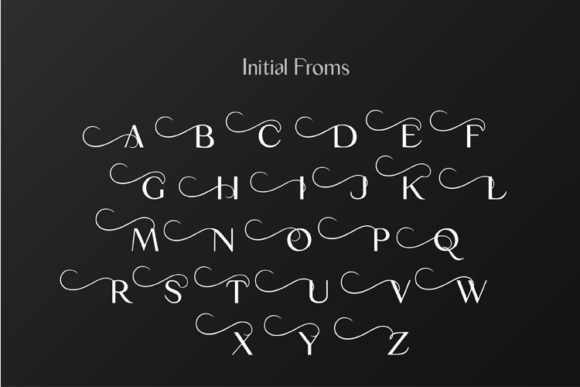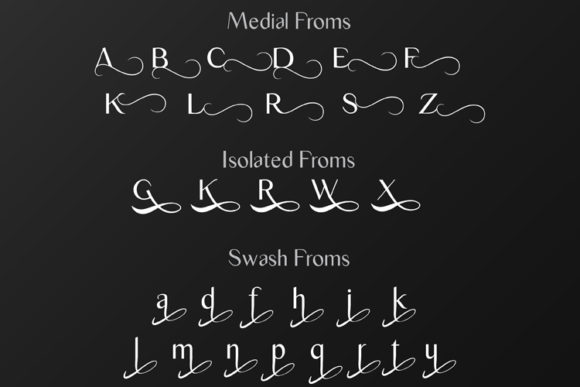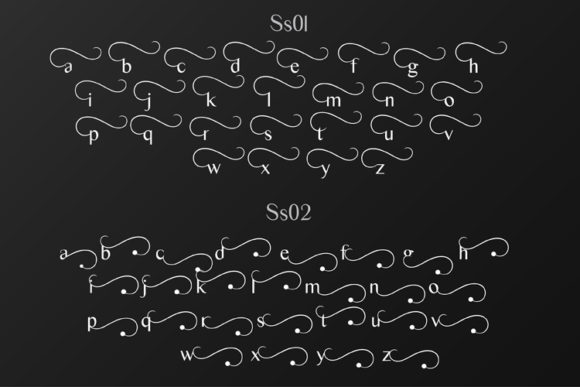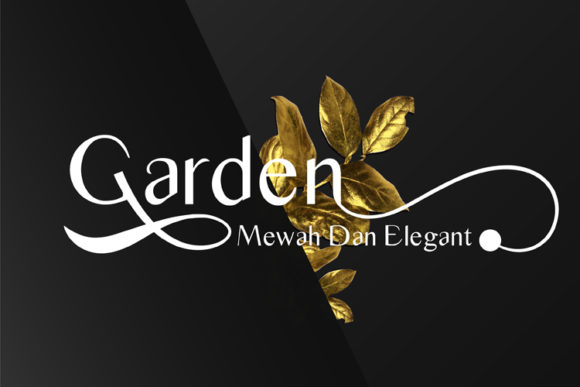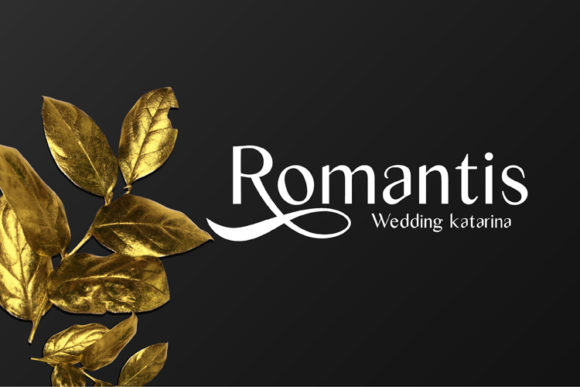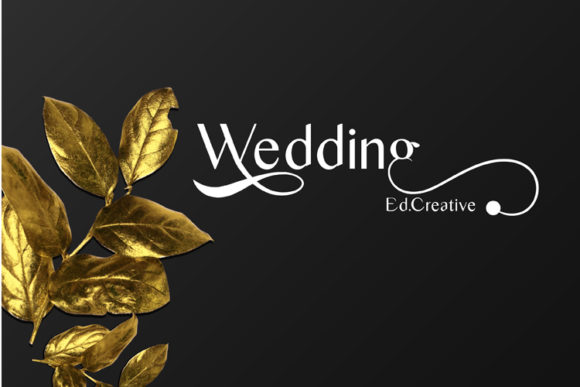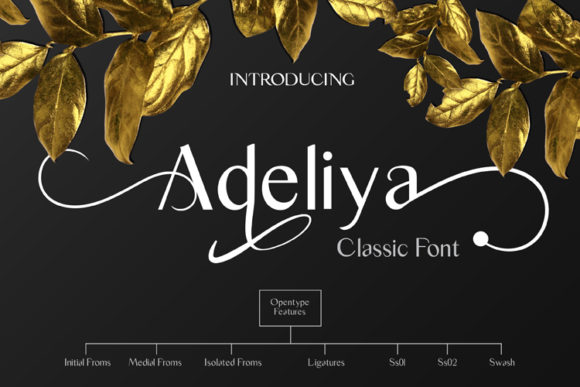
Introducing Adeliya Font: Elevate Your Designs with Elegance and Sophistication
In the world of typography, fonts play a crucial role in conveying the tone and personality of a design project. For designers and crafters seeking to add a touch of elegance and sophistication to their work, Adeliya Font is an excellent choice. This classy serif font is designed to make your designs stand out with its unique features and stylish alternates.
What is Adeliya Font?
Adeliya is a beautifully crafted serif font that exudes luxury and refinement. Its classic design is perfect for projects that require a high-end look, such as branding, packaging, and editorial design. What sets Adeliya apart is its extensive collection of alternate letters, featuring elegant swirls that add a touch of whimsy and personality to your designs.
Key Features of Adeliya Font
• Classy Serif Design: Adeliya’s serif design is reminiscent of traditional luxury typography, making it perfect for high-end design projects.
• Tons of Alternate Letters: The font includes a wide range of alternate letters, allowing you to add a unique touch to your designs and make them more personalized.
• Elegant Swirls: The elegant swirls featured in Adeliya’s alternate letters add a touch of sophistication and whimsy to your designs.
• Versatile: Adeliya is suitable for a wide range of design projects, from branding and packaging to editorial design and digital media.
Why Choose Adeliya Font?
With so many fonts available, why choose Adeliya for your design projects? Here are a few compelling reasons:
• Unique and Personalized: Adeliya’s alternate letters and elegant swirls allow you to create unique and personalized designs that stand out from the crowd.
• High-End Look: The font’s classy serif design and elegant features give your designs a high-end look that’s perfect for luxury brands and high-end products.
How to Use Adeliya Font in Your Design Projects
Using Adeliya Font in your design projects is easy. Here are a few tips to get you started:
• Pair it with Other Fonts: Adeliya pairs well with other serif and sans-serif fonts, making it easy to create harmonious and balanced designs.
• Experiment with Alternate Letters: Take advantage of Adeliya’s alternate letters to add a unique touch to your designs and make them more personalized.
• Use it for Headings and Titles: Adeliya is perfect for headings and titles, where its elegant features can be showcased to maximum effect.
In conclusion, Adeliya Font is a classy serif font that’s perfect for designers and crafters seeking to add a touch of elegance and sophistication to their design projects. With its extensive collection of alternate letters and elegant swirls, Adeliya offers a unique and personalized way to elevate your designs and make them stand out. Whether you’re working on a branding project, packaging design, or editorial design, Adeliya is an excellent choice.